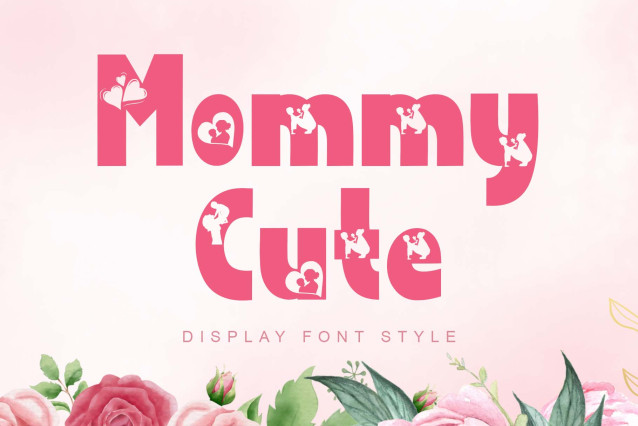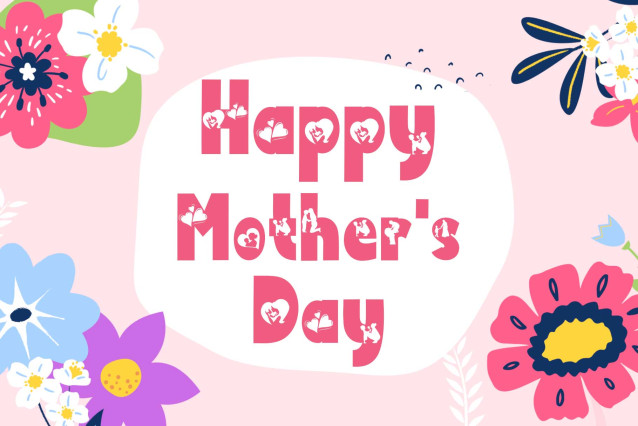
Mommy Cute Font
Mommy Cute Font is a cute and unique display font. This font is equipped with uppercase, lowercase, numerals, punctuations and multilingual support. It is very suitable for posters, mother’s day, summer, spring, holiday, vacations, logos, christmas, easter, branding and others.